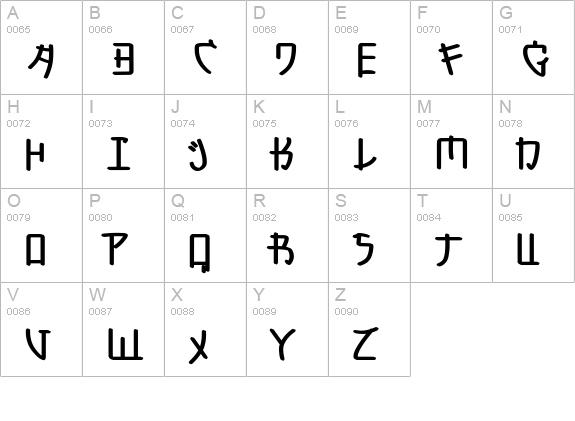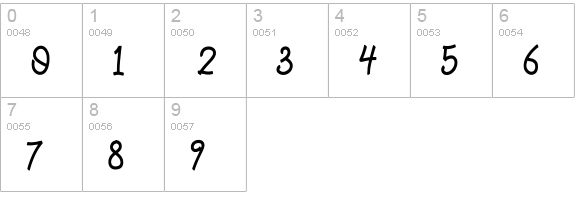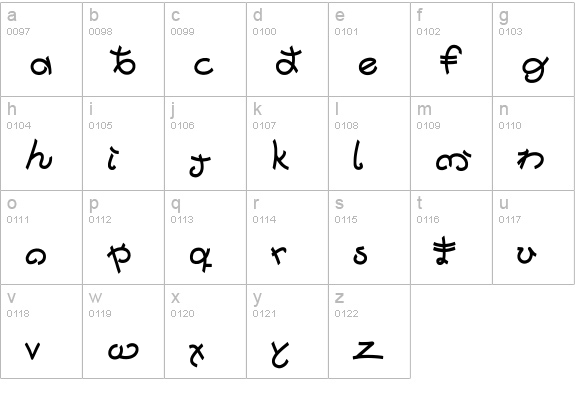
Hirakatana is a stunning display font that effortlessly combines elegance with a touch of modernity. With its sleek lines and delicate curves, this font is perfect for adding a touch of sophistication to any design project. Hirakatana offers a wide range of stylistic alternates, ligatures, and swashes, allowing you to create unique and eye-catching typography. Whether you're designing a logo, packaging, or a website, this font will surely make a lasting impression. One of the best features of Hirakatana is that it is free to download. Yes, you read that right! This incredible font is freely available at FontsMarket.com. Now you can enhance your designs without breaking the bank. The versatility of Hirakatana is unparalleled. It can be used for both personal and commercial projects, making it a great choice for designers of all levels. Its legibility and readability make it perfect for headlines, titles, and large-scale designs, while its elegance and charm make it equally suitable for invitations, quotes, and branding materials. Don't miss out on this fantastic opportunity to elevate your designs with the Hirakatana font. Download it for free today at FontsMarket.com and let your creativity shine!